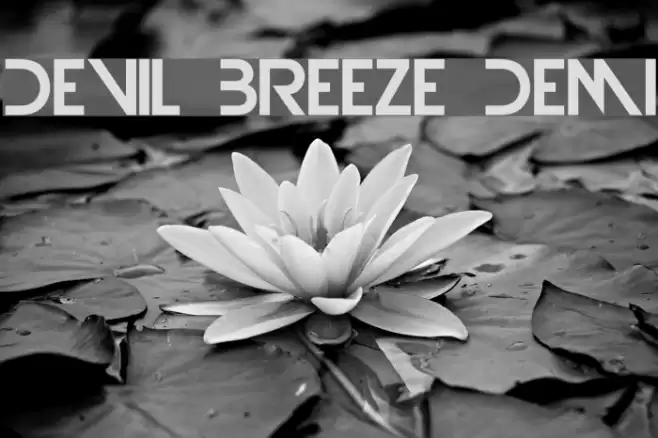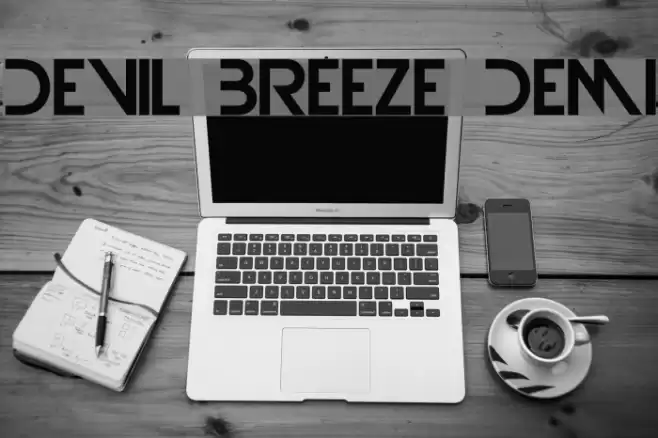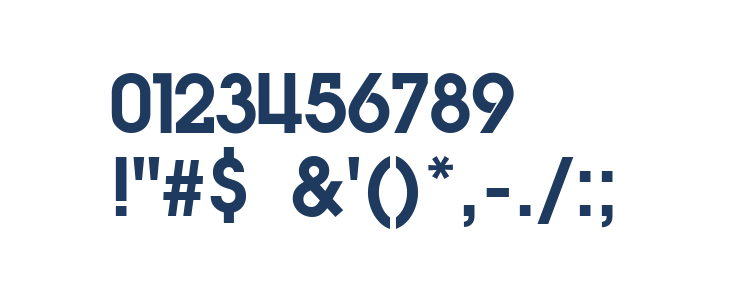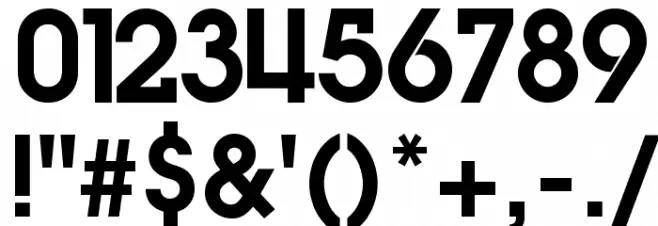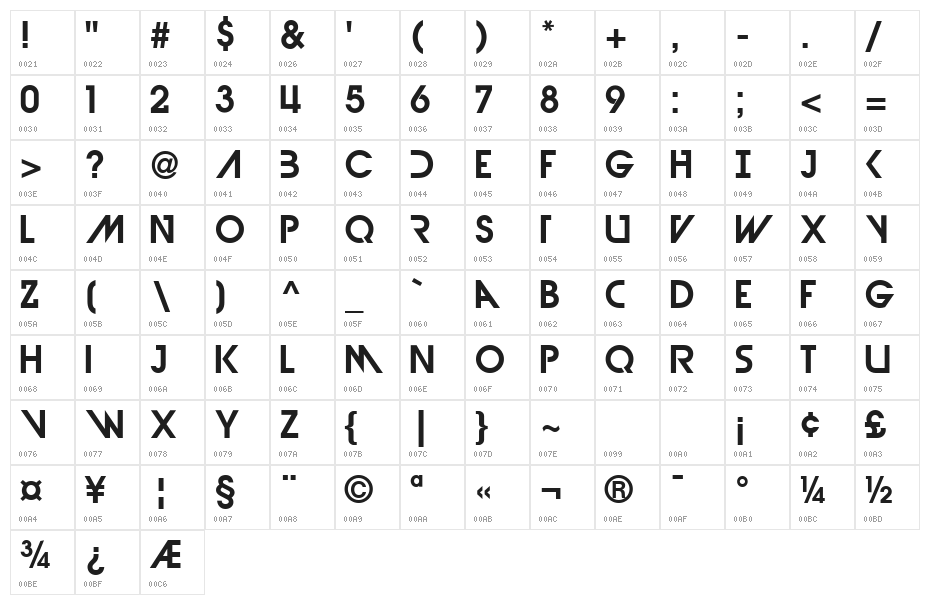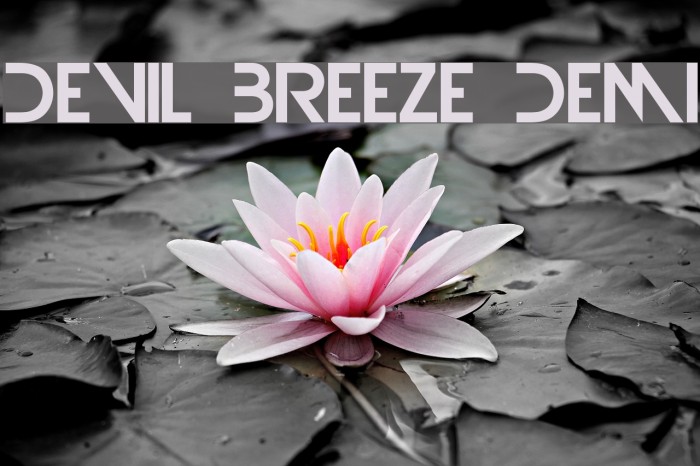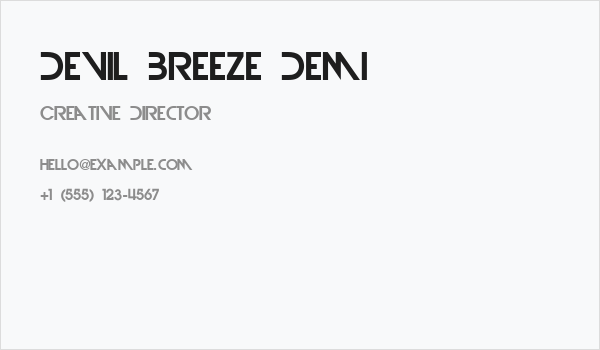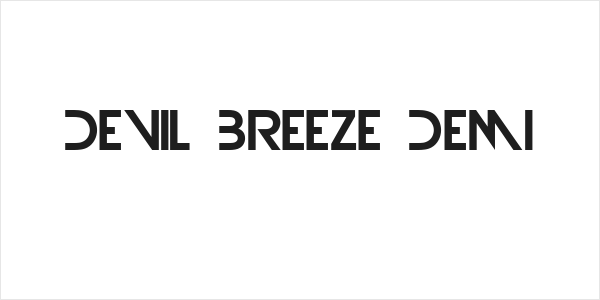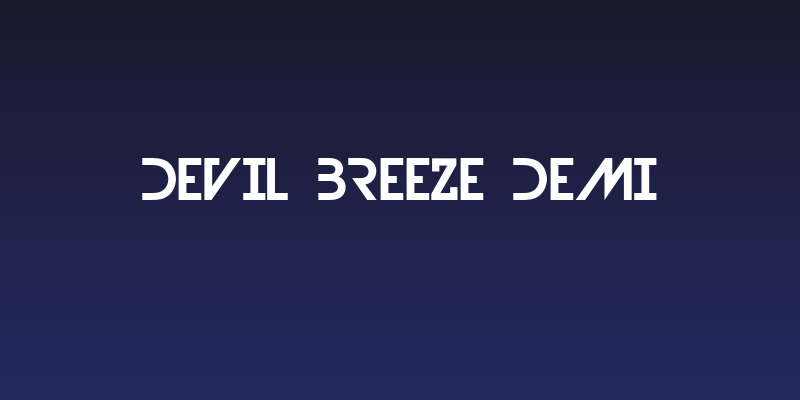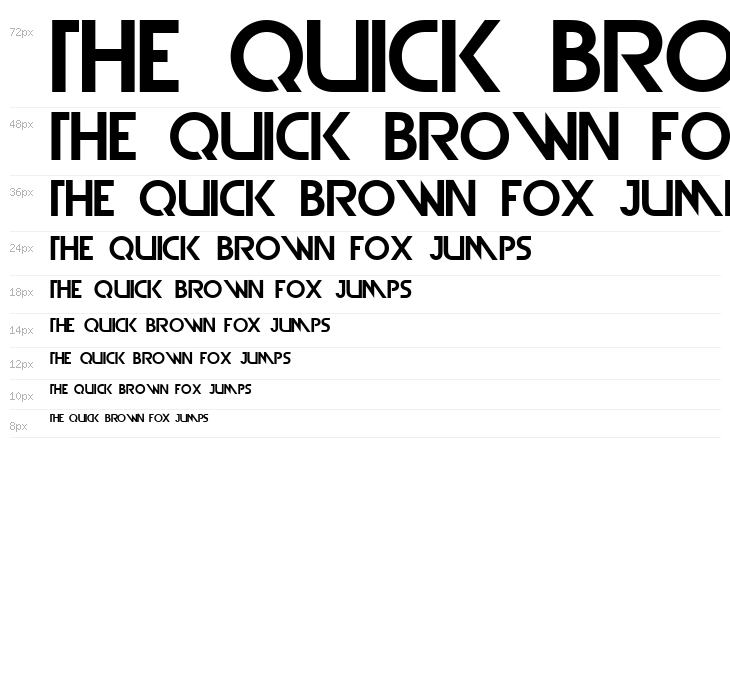
Devil Breeze Demi Font
Devil Breeze Demi Description
This font features a bold and geometric design with sharp angles and clean lines, creating a modern and futuristic aesthetic. The uppercase letters are distinct with their angular cuts and unique shapes, making them stand out. The numerals follow the same geometric style, ensuring consistency throughout. Special characters are designed to complement the overall bold and striking appearance. This font is ideal for projects that require a strong visual impact and a contemporary feel.
A bold, geometric font with sharp angles and a modern aesthetic from Uncategorized fonts.
- Proposed Projects: Ideal for branding, posters, headlines, and any design that requires a strong, modern impact.